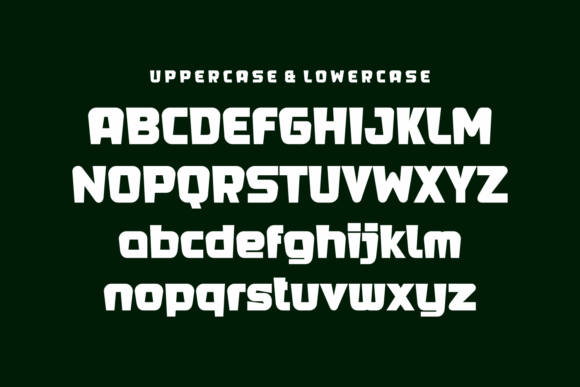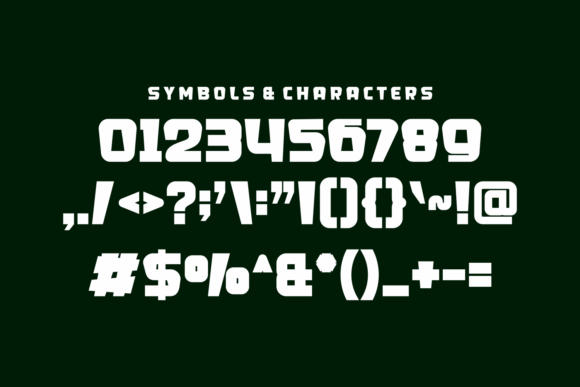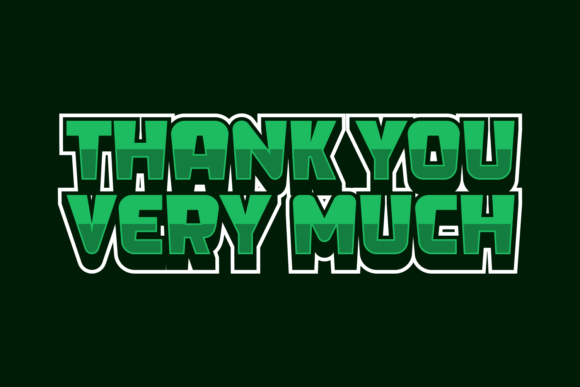
Introduction to Kroin Font
As a designer, there’s nothing quite like the thrill of discovering a new font that sparks creativity and takes your project to the next level. You’re brainstorming ideas for a campaign, and suddenly, the perfect typography pops into your mind – it’s like the missing piece of the puzzle has been found! For many designers, this ‘aha’ moment is what drives them to push the boundaries of their craft.
Enter the Kroin Font, a quirky and fascinating display font that’s about to become your new go-to design resource. With its unique flair and adaptability, Kroin Font is the perfect addition to any creative project. Whether you’re working on a logo, a poster, or a website, this font’s versatility will ensure your design stands out from the crowd.
Key Features of Kroin Font
- High-quality design resource ideal for creative projects, offering a unique and elegant touch.
- Transparent background, providing a clean and modern aesthetic that can be easily layered or combined with other design elements.
- Designed to be highly legible, with clear lines and a balanced composition, making it suitable for a wide range of applications.
Honest Review: Kroin Font
As a designer, I’ve had the pleasure of working with numerous fonts for various creative projects. The Kroin Font caught my attention with its unique design and free download option.
What works well for the Kroin Font is its versatility and high quality. It’s available in various styles, making it a great addition to any design resource collection. I particularly appreciate its transparent background, which allows for seamless integration into any project.
- ✨ Unique design: The Kroin Font stands out with its distinctive character and style.
- ✨ High-quality: The font is well-designed and has a professional finish.
However, there are a few limitations to consider. The font may not be suitable for all design projects, particularly those requiring a more conservative or traditional look.
- ⚠️ Limited versatility: While the Kroin Font is versatile, it may not be suitable for all design styles or themes.
- ⚠️ Dependence on context: The font’s effectiveness depends on the context in which it’s used.
Overall, I’m impressed with the Kroin Font and would recommend it to designers looking for a unique and high-quality design resource.
The Kroin Font is perfect for creating eye-catching headings, titles, and text elements for presentations, brochures, and marketing materials. It’s also great for creating custom graphics and illustrations.